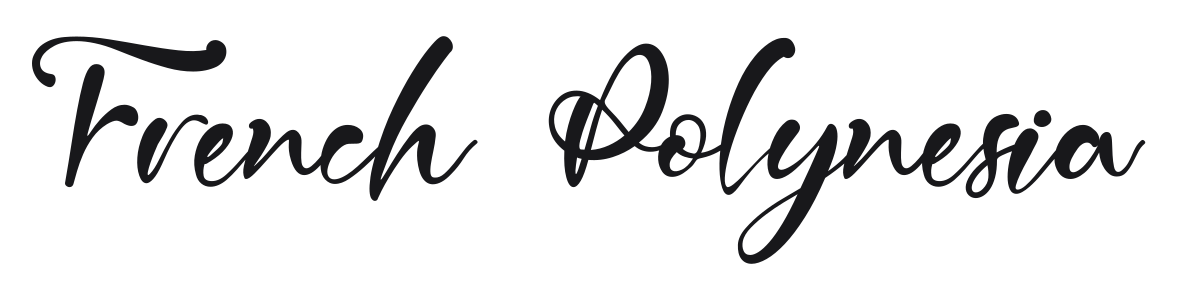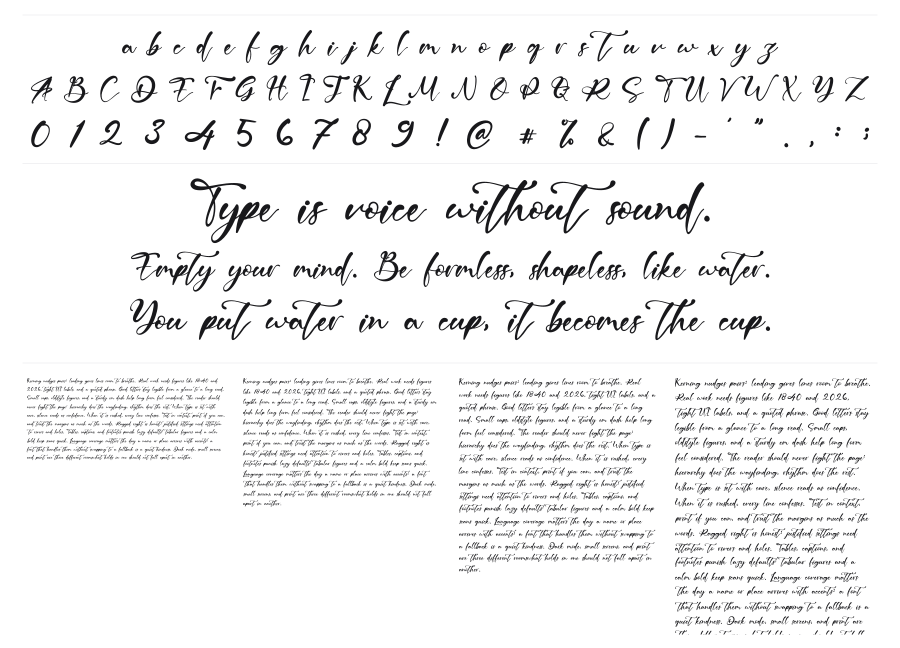
French Polynesia
French Polynesia is a flowing brush script with high stroke contrast and sweeping swash details that give it a loose, hand-lettered feel. Long looping ascenders and descenders create an energetic rhythm across any word set in it. It sits in that sweet spot between casual warmth and refined elegance that works well for branding, invitations, and packaging.